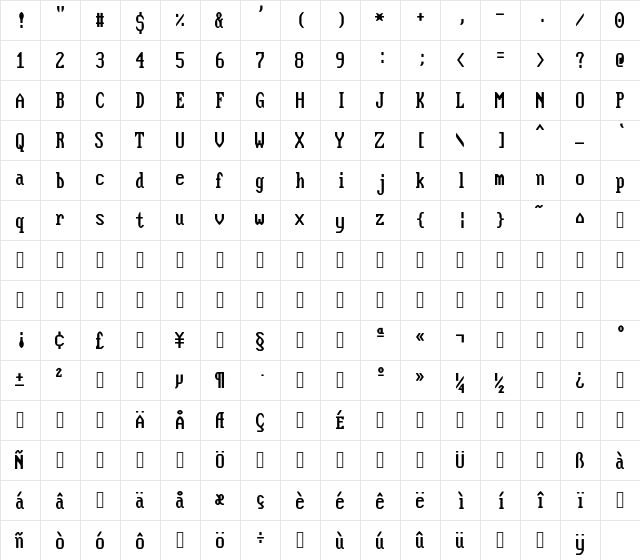
Flexi IBM VGA True (437) Regular
| Foundry | VileR |
| Designer | VileR |
Design Context for Flexi IBM VGA True (437) Typeface
Flexi IBM VGA True (437) offers clean, dependable letterforms without strong stylistic allegiance, making it a practical choice for designers who need flexibility.